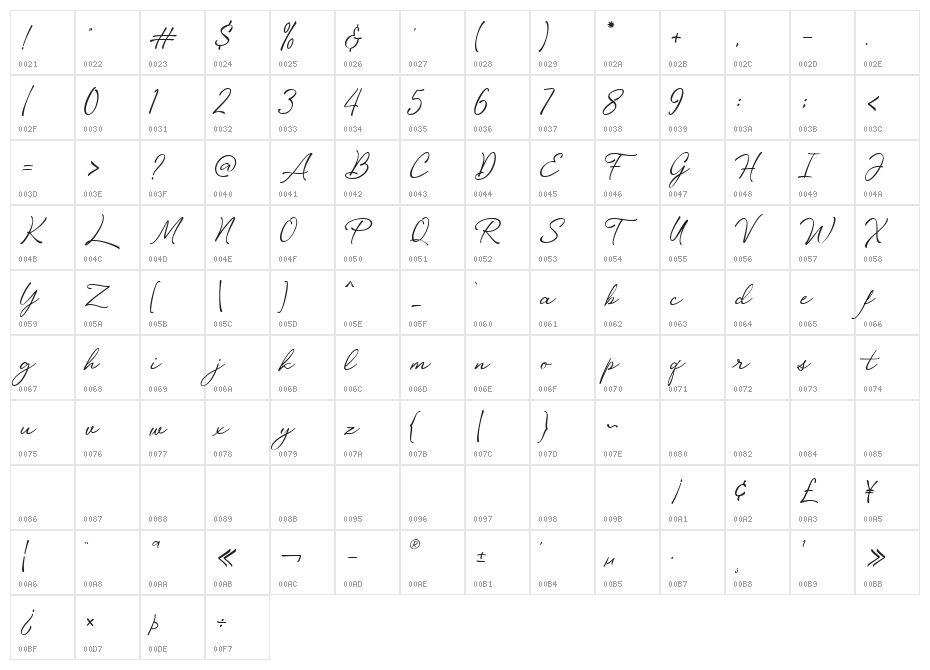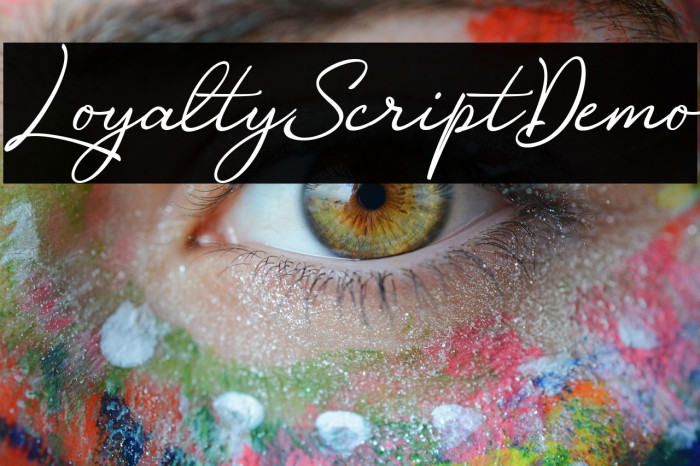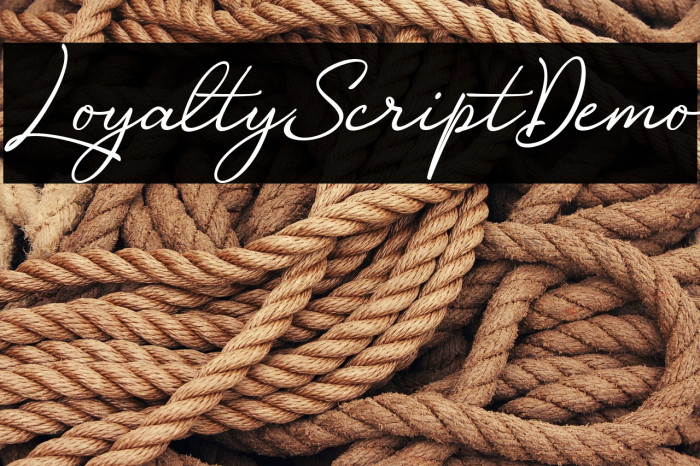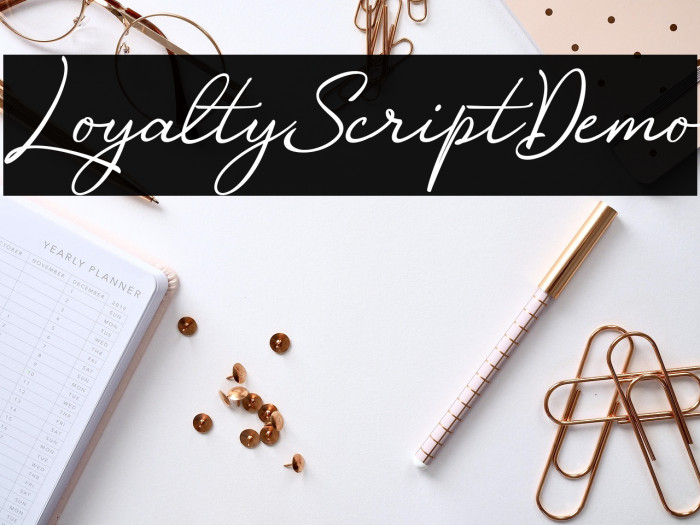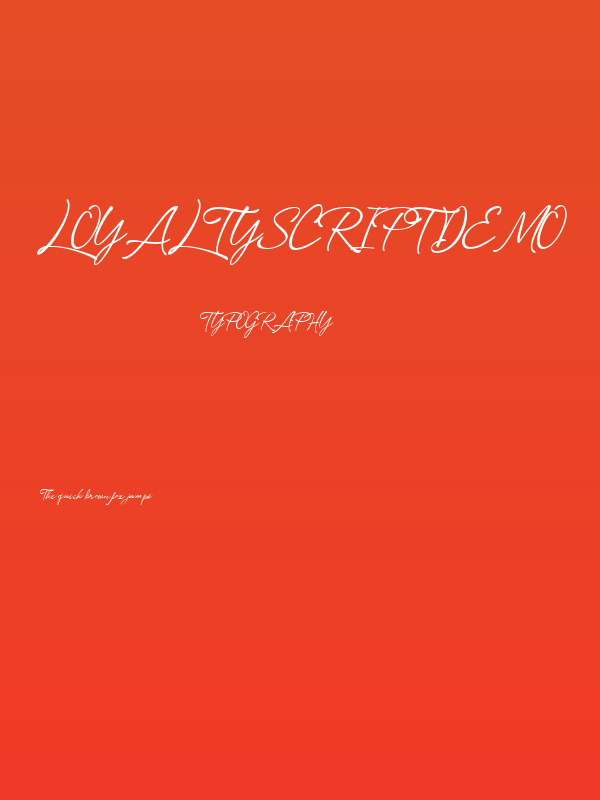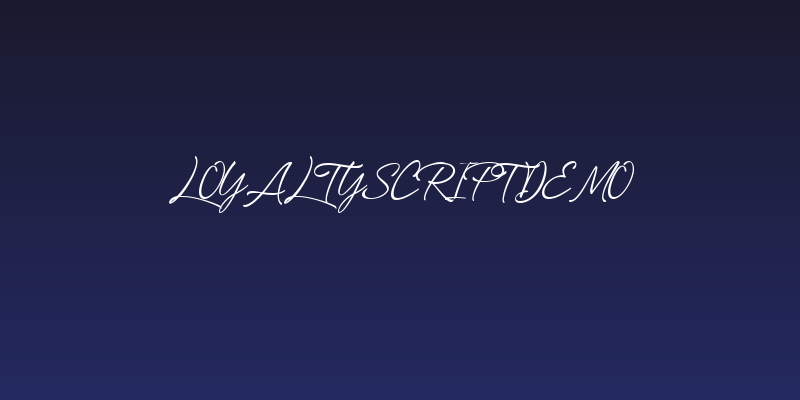
LoyaltyScriptDemo Font
| Gesamtstil | Elegant, Sophisticated |
| Anwendungsfall | Logos, Invitations, Personal Branding |
| Vorgeschlagene Projekte | Ideal for wedding invitations, greeting cards, personal branding, and elegant packaging designs. |